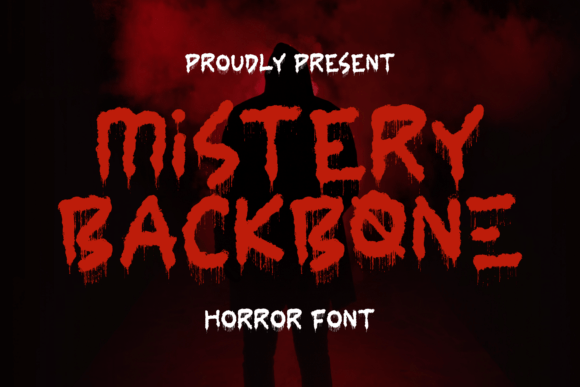
Welcome to the eerie realm of Mistery Backbone Font, where darkness and mystery intertwine to create spellbinding designs. Inspired by the very essence of horror, this font family breathes life into your creations, adding an element of fear and suspense that will leave your audience spellbound.
Picture your logos adorned with the menacing curves of Mistery Backbone, commanding attention like a whispering specter. Branding projects take on a new level of sophistication, exuding an aura of mystery and intrigue that will haunt your customers' minds. Let your homeware designs become portals to the unknown, evoking a sense of foreboding that will keep them on the edge of their seats.
Unleash your creativity on product packaging, transforming them into sinister canvases that whisper tales of terror. Mugs adorned with Mistery Backbone become vessels of fear, promising both anticipation and a chilling thrill with every sip. Quotes take on a haunting beauty, as if whispered from the depths of a haunted mansion. Posters become chilling masterpieces, daring you to venture into the unknown.
Shopping bags adorned with the font speak of enigmatic adventures, promising treasures that come with a price. T-shirts become wearable works of art, conveying a subtle yet powerful message of mystery and suspense. Book covers adorned with Mistery Backbone invite readers into a world of shadows, promising tales that will keep them awake at night.
Name cards become personal statements of enigmatic charm, sure to leave an unforgettable impression. Invitation cards and greeting cards become harbingers of thrilling events, hinting at secrets yet to be unveiled. Labels, photography, and watermarks all become part of the eerie tapestry, adding a touch of the macabre to every aspect of your creations.
So, let your imagination run wild, embrace the spine-tingling allure of Mistery Backbone Font, and create designs that hauntingly beautiful, mysteriously captivating, and forever memorable. Let the darkness guide your creations and unlock the hidden power of fonts to evoke emotions that will linger long after the last page is turned.